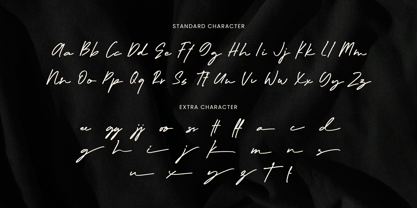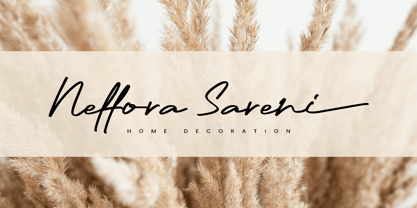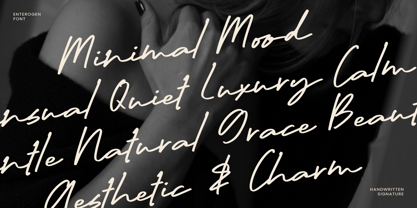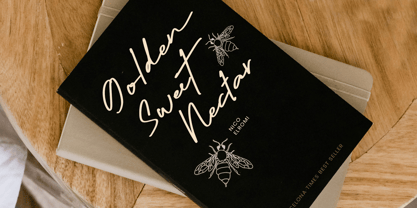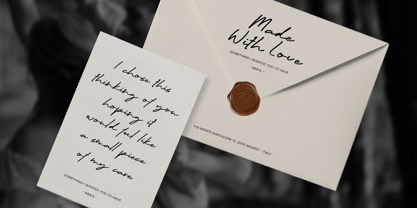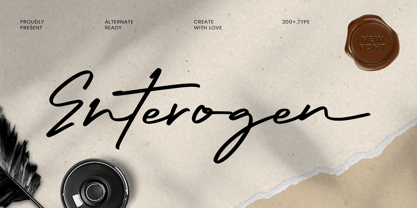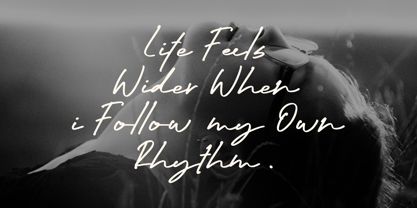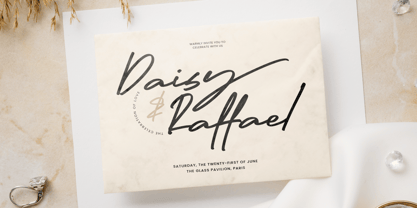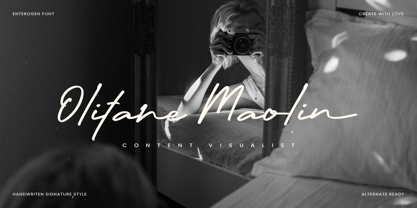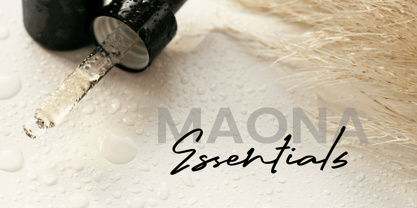
Enterogen
by Vampstudio
The Enterogen Font Family was designed by Irfan syah and published by Vampstudio. Enterogen contains 1 styles. More about this family
Enterogen is a natural handwritten signature font designed to bring elegance, authenticity, and personal character into your creative projects. Featuring smooth flowing strokes and expressive letterforms, Enterogen delivers a modern handwritten aesthetic that feels stylish and organic. This font is carefully crafted to work beautifully for branding, social media, wedding designs, product packaging, and signature logos.
Designers: Irfan syah
Foundry: Vampstudio